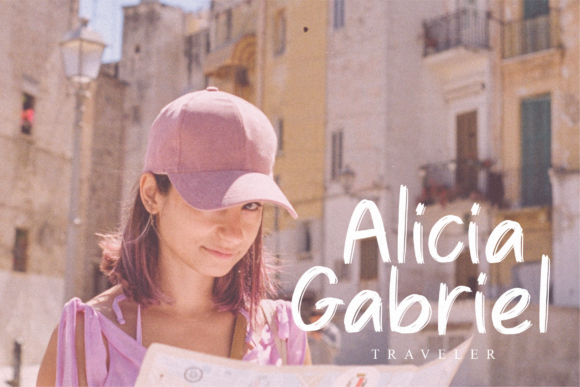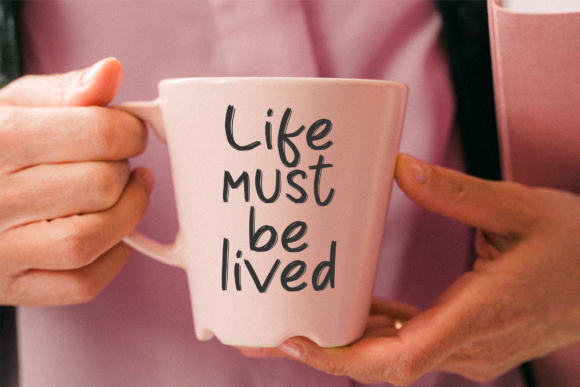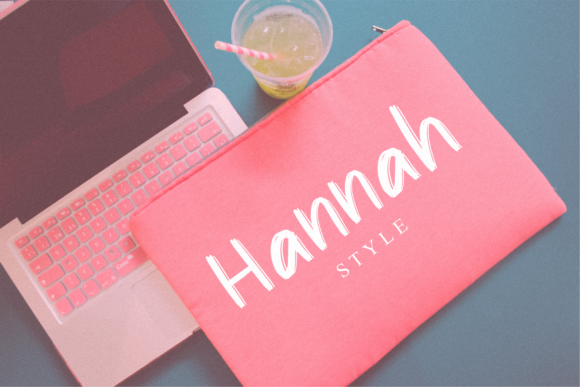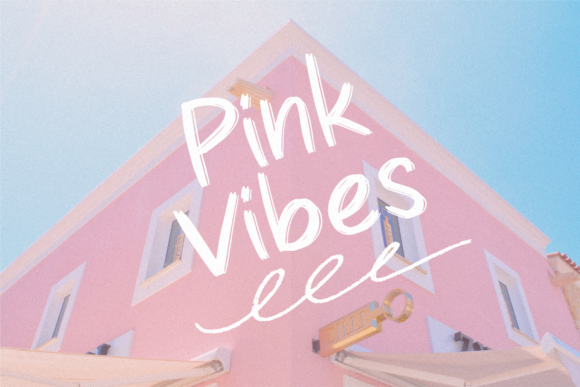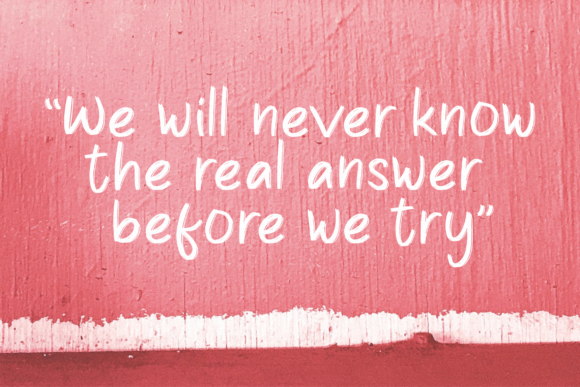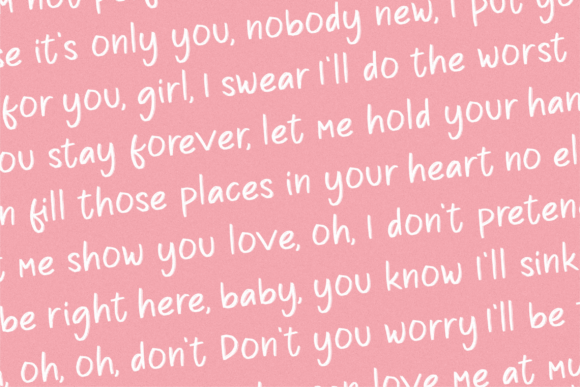
Introduction to Pear Amigo Font
Have you ever been working on a creative project, staring at a blank page, and suddenly the perfect font pops into your mind? For designers, that “aha” moment is priceless. It’s the moment when everything falls into place, and the project starts to come alive. For me, that moment happened when I discovered the Pear Amigo Font. This fun handwritten typeface font is a game-changer for any design project.
As a design resource, the Pear Amigo Font is incredibly valuable. With its high quality and free download, designers can easily incorporate it into their work. Whether you’re working on product packaging, branding projects, or social media campaigns, the Pear Amigo Font is perfect for adding a personal touch. Plus, its transparent background makes it easy to layer over any design element.
Key Features of Pear Amigo Font
- High-quality design: Pear Amigo Font is a free download that offers a unique, modern aesthetic perfect for creative projects.
- Transparent background: This feature allows designers to easily layer the font over various backgrounds without any visual obstruction.
- Resolution: The font is designed to be scalable, with a high resolution that maintains its quality at various sizes.
- Unique characteristics: Pear Amigo Font features a distinctive blend of geometric and organic elements, making it an ideal choice for designers seeking a creative, eye-catching font.
Honest Review: Pear Amigo Font
As a designer, I’m always on the lookout for high-quality fonts that can elevate my creative projects. Recently, I stumbled upon the Pear Amigo Font, and I’m excited to share my honest review with you.
- Transparency: The Pear Amigo Font comes with a transparent background option, making it perfect for overlaying text on images or videos.
- High quality: The font is well-designed, with clean lines and a professional look that’s suitable for a wide range of creative projects.
- Limited font sizes: While the font is available in various sizes, the options are somewhat limited compared to other fonts.
- Not ideal for small text: Due to its design, the font may not be the best choice for small text or fine details.
Overall, I’m impressed with the Pear Amigo Font. It’s a great addition to my design resources, and I’ve already used it in several creative projects. While it may have some limitations, the pros definitely outweigh the cons. If you’re looking for a high-quality, free font with a transparent background, the Pear Amigo Font is definitely worth checking out.
Tips for Getting the Most Out of Pear Amigo Font
Use Pear Amigo Font for creative projects where you want a high-quality, free download font with a transparent background. This font is perfect for designers looking for a unique and stylish design resource.
Pear Amigo Font is commonly used in design projects such as social media graphics, flyers, posters, and presentations. It’s also a great choice for creative projects like branding, packaging, and advertising materials.
Alternatives to Pear Amigo Font
Great Vibes is a high-quality, elegant script font that’s perfect for creative projects requiring a touch of sophistication. Its transparent background and smooth lines make it ideal for designing posters, invitations, and other visual materials. While it lacks the quirky feel of Pear Amigo Font, Great Vibes is a great choice for projects that demand a more refined aesthetic.
Alex Brush is a beautiful, handwritten font that’s suitable for a wide range of creative projects. Its high-quality design and transparent background make it a great alternative to Pear Amigo Font for designers seeking a more refined, elegant look. Use Alex Brush for projects that require a personal touch, such as wedding invitations, menus, or other promotional materials.
Can I use the Pear Amigo Font with a transparent background?
Yes, the Pear Amigo Font is designed to work well with transparent backgrounds, making it ideal for creative projects that require a high level of design flexibility.
Is the Pear Amigo Font a high-quality font?
Yes, the Pear Amigo Font is a high-quality design resource, crafted with attention to detail and precision. Its crisp, clear characters make it perfect for a wide range of creative projects, from print to digital media.